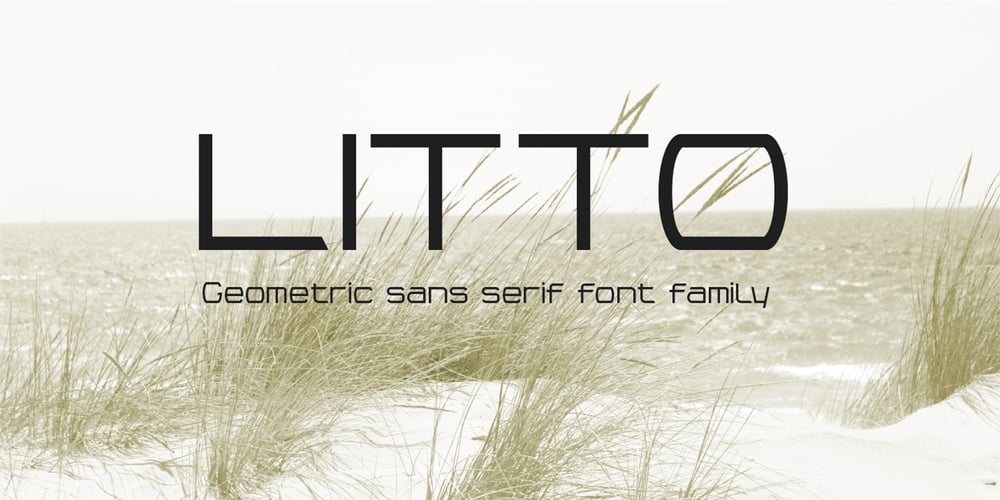
Litto Font Family was designed by Volodymyr Berla and published by VladB. Litto contains 10 styles and family package options. The name of the font is taken from the concept “Littoral zone” – this is the part of the sea that is close to the shore. The width of the shore varies as a result of the tides. Hence the idea of my font family — changing the width of a character from condenced to extra expanded. Litto is a modern sans serif geometric font, includes upper and lower case characters, Latin and Cyrillic. Graphically, the characters have uniform thickness for all family.